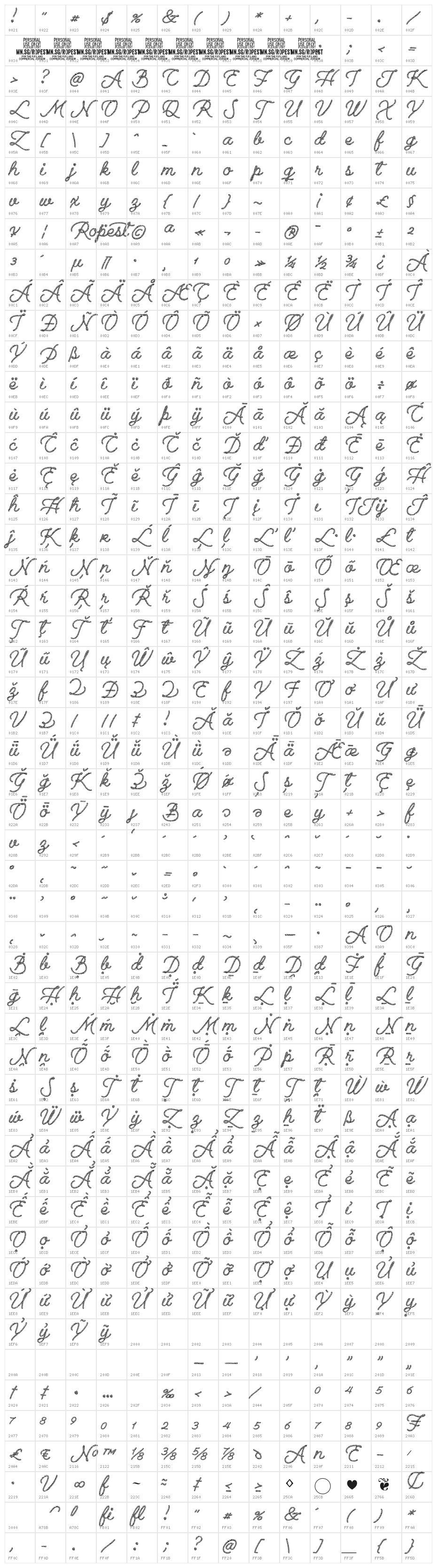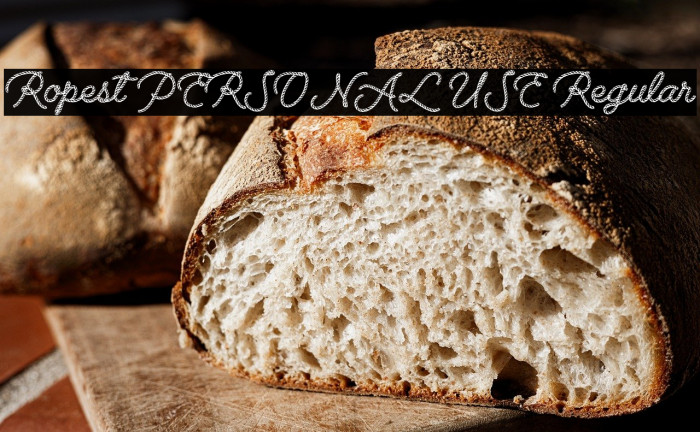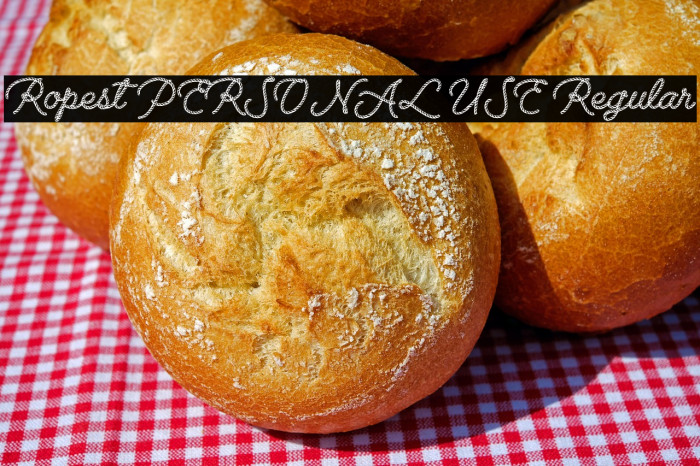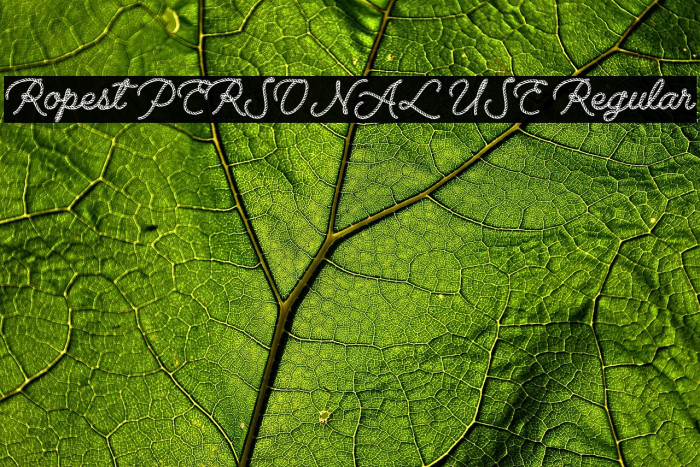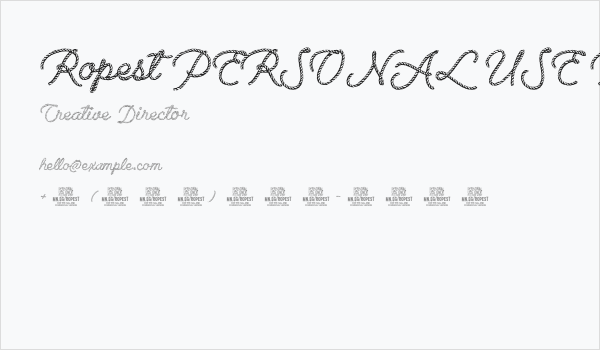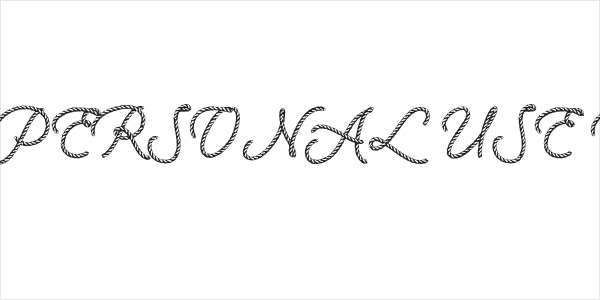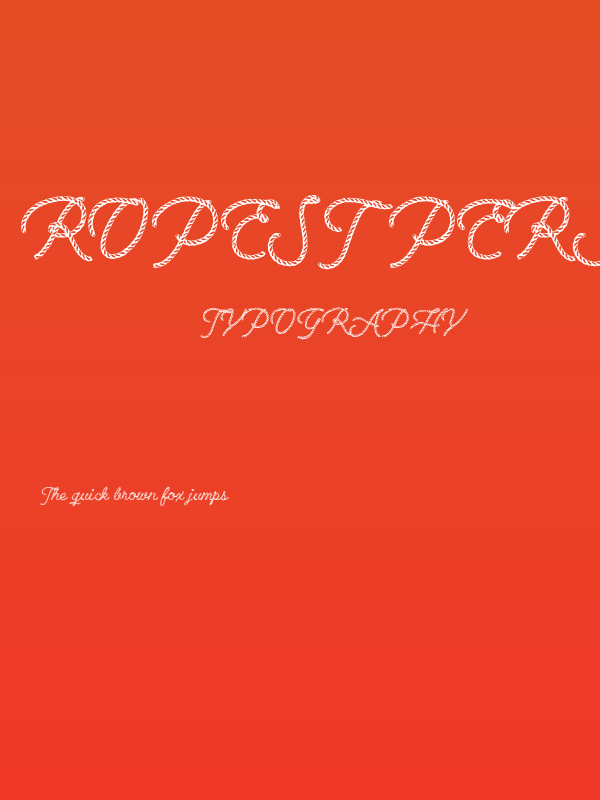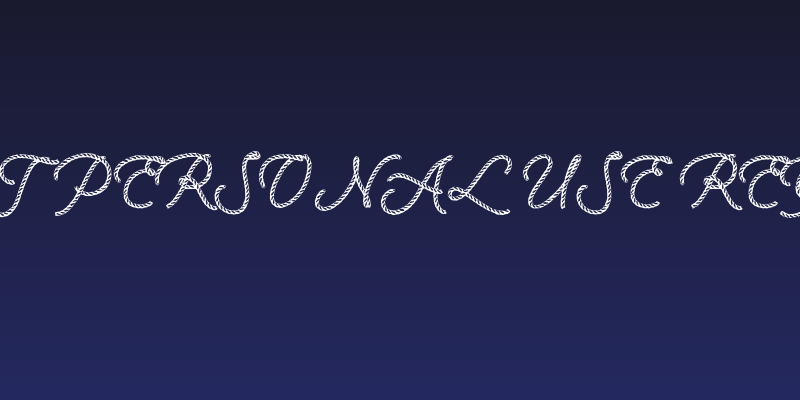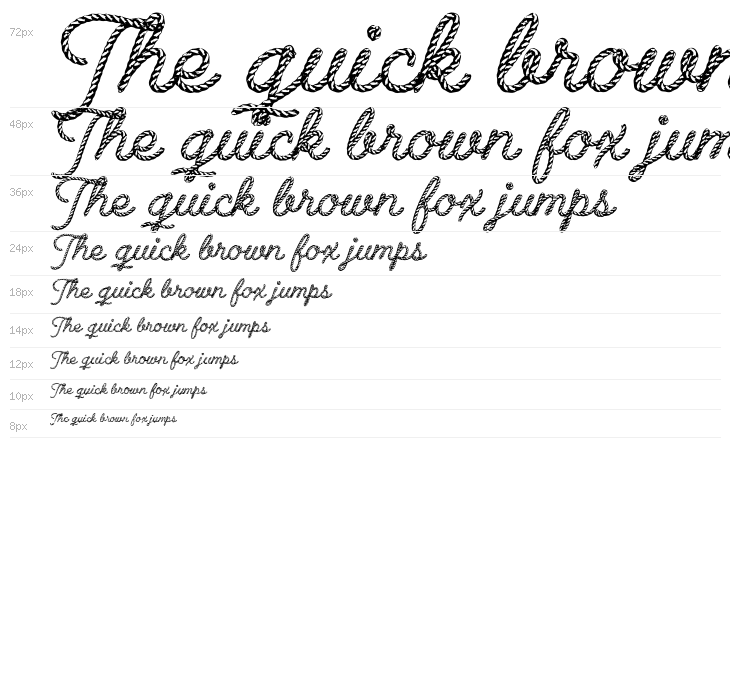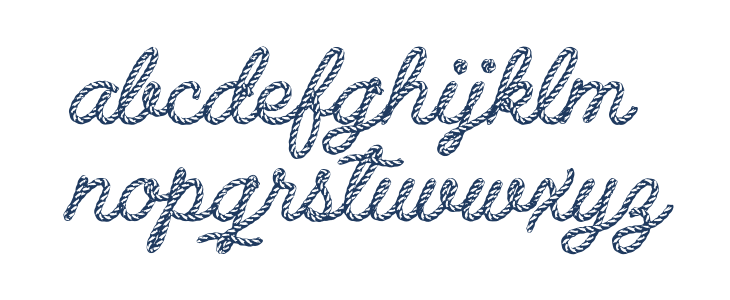
Ropest PERSONAL USE Regular Font
Ropest PERSONAL USE Regular Description
This font features a unique and creative design where each character is crafted to resemble a twisted rope. The intricate detailing gives it a three-dimensional appearance, making it stand out with a tactile, textured look. The uppercase and lowercase letters maintain a consistent style, with the rope effect applied uniformly across all characters, including numbers and special symbols. This decorative style is both playful and visually striking, ideal for projects that require a nautical or adventurous theme. The font's design is highly detailed, ensuring that each letter is easily distinguishable while maintaining the overall rope motif.
Proposed ProjectsIdeal for nautical-themed designs, adventure branding, children's books, or event posters.